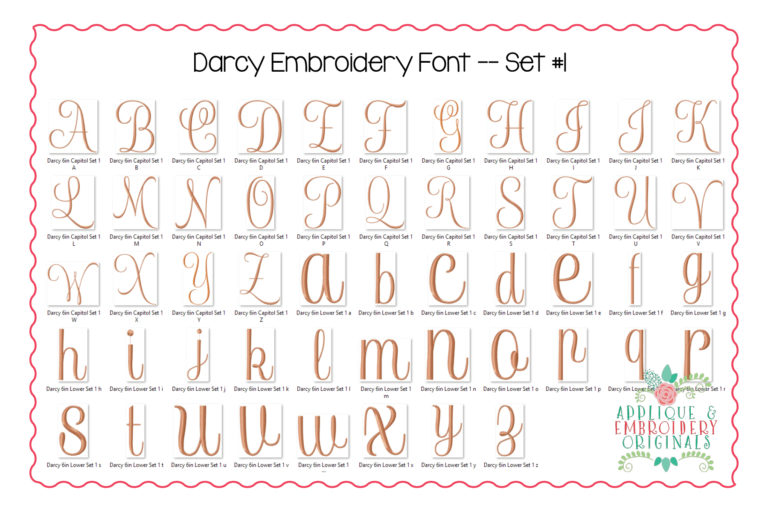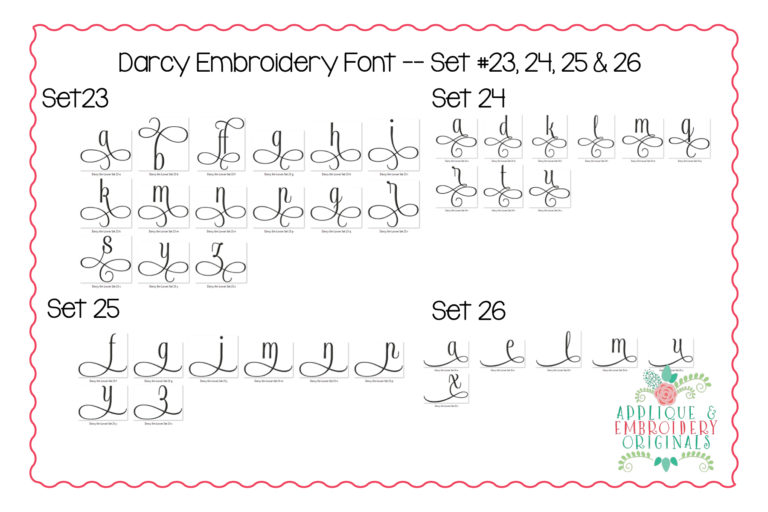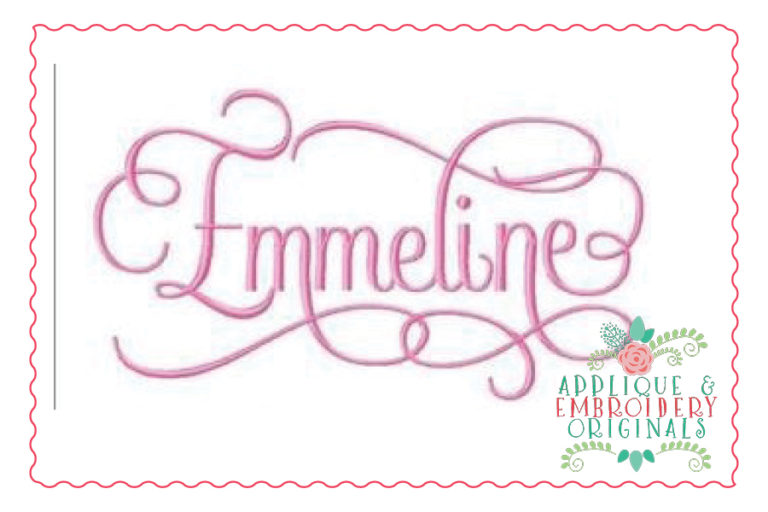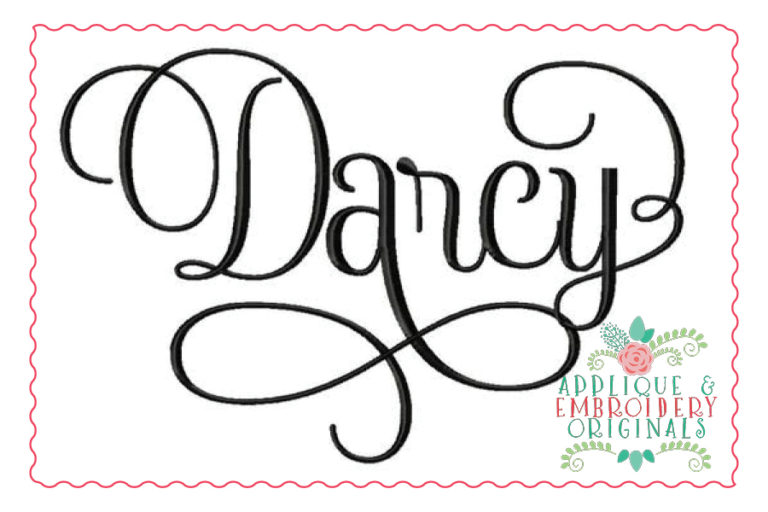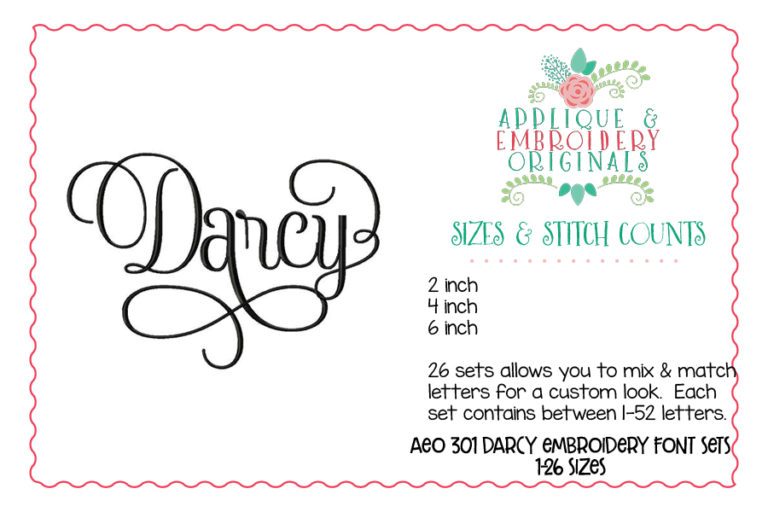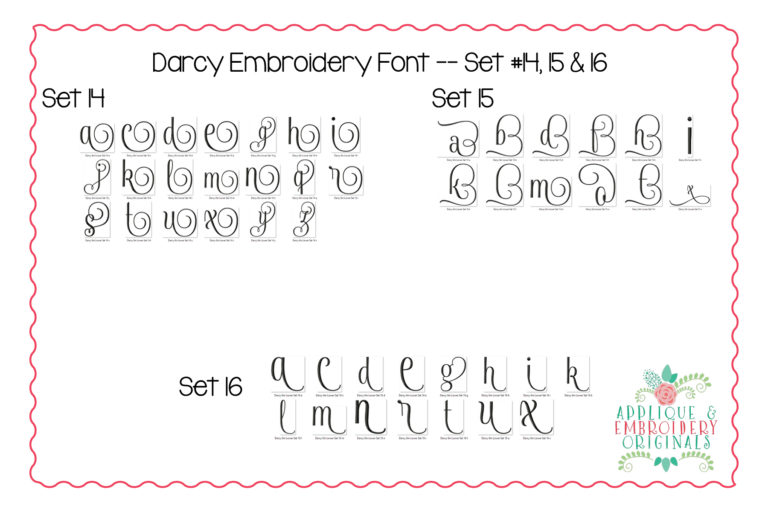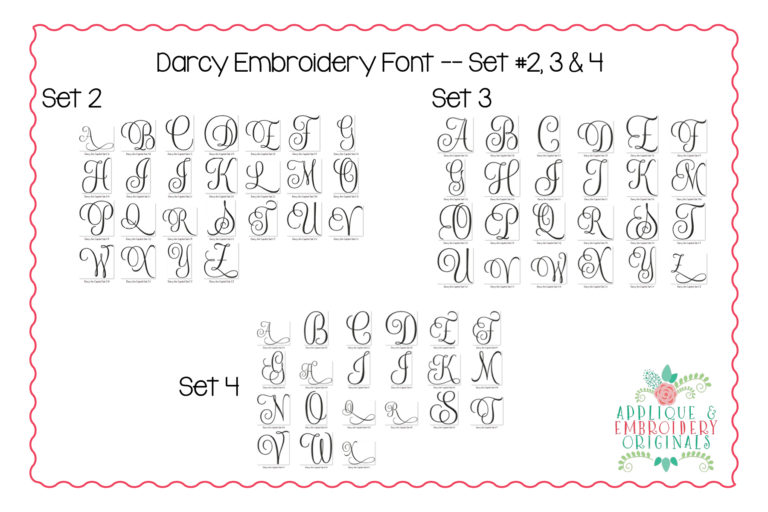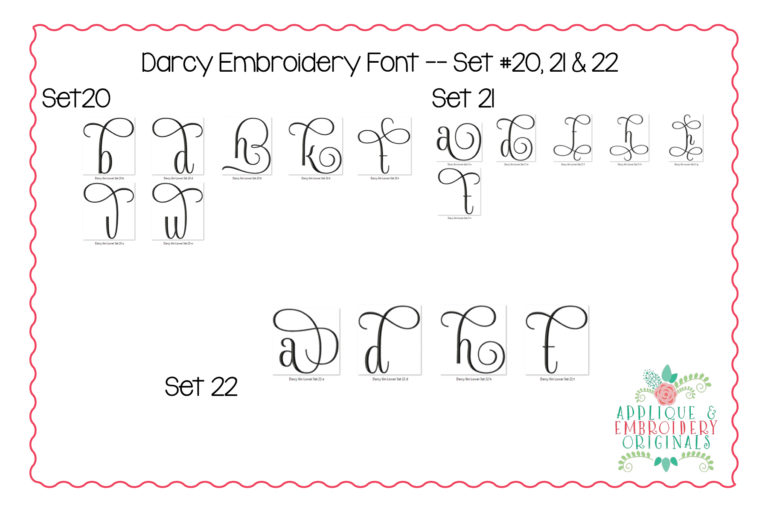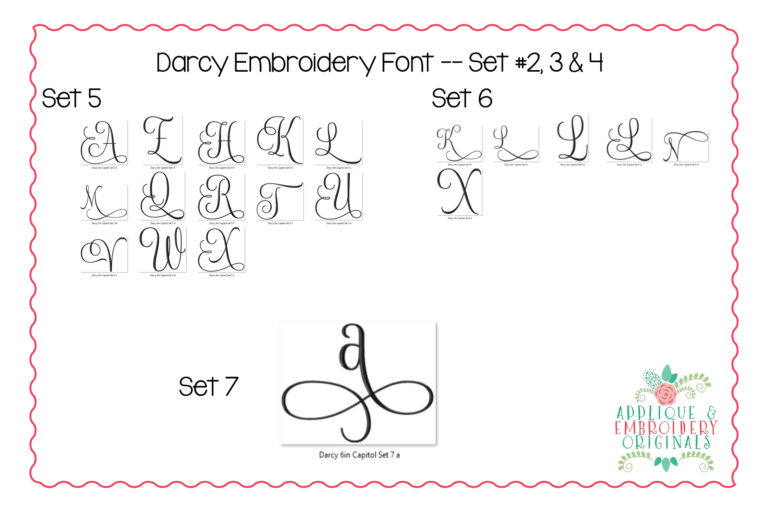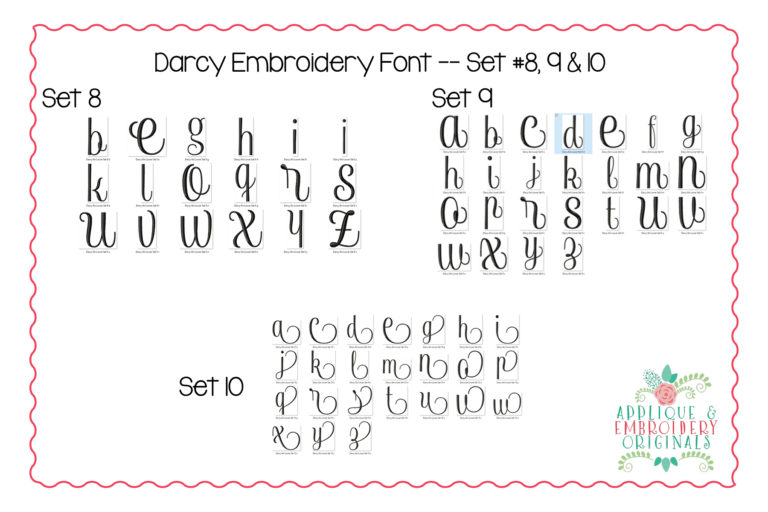
301 Darcy with Alternates Monogram Embroidery Font Design for embroidery machine. Perfect for your shirt, bag, towel or other item!
Designs comes in sizes 2″, 4″, and 6″. You can mix and match from the 26 sets to make a custom name of your choice!
Please note that not all 26 sets have 52 letters. Each set is shown above and are letters to use as alternates to the main set!